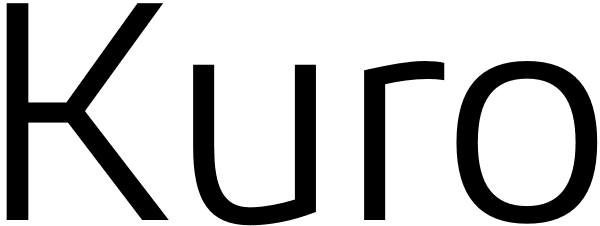
Kuro
Kuro is a precisely rendered sans-serif type family. Modern geometric forms combined with subtle detailing create a charming, straightforward and versatile design. The lighter weights bring a contemporary touch to body copy while the bold weights...